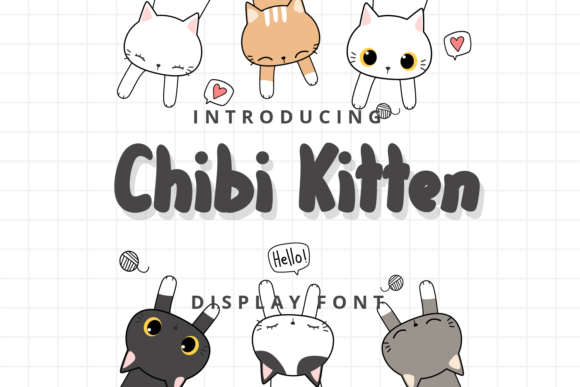
Dive into a whimsical world of creativity with Chibi Kitten Font, the playful display font that sparks joy and captivates hearts. Inspired by the enchanting world of anime and manga, this font exudes a delightful charm that will transform your designs into captivating masterpieces.
Journey through a kaleidoscope of emotions as Chibi Kitten's playful curves and cheerful strokes dance across your screen. Each letter is a tiny work of art, meticulously crafted to bring a smile to your face and ignite your imagination. Let this font carry you away to a realm where cuteness and creativity collide, resulting in designs that leave a lasting impression.
Embrace the versatility of Chibi Kitten Font and explore its endless possibilities. Whether you're designing eye-catching quotes, creating playful shirt designs, or crafting captivating websites, this font is your perfect companion. Its charming personality shines through in branding projects, children's designs, blogs, and logos, adding a touch of whimsy and delight to every creation.
Indulge in the magic of Chibi Kitten Font and watch as your designs come alive with personality. Let this font transport you to a realm of limitless creativity, where imagination knows no bounds. Unleash your inner artist and embark on a journey of self-expression like never before.